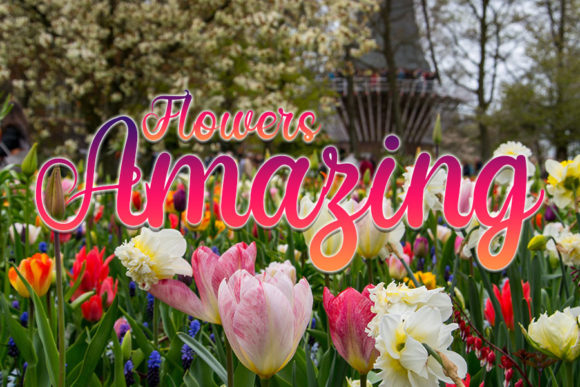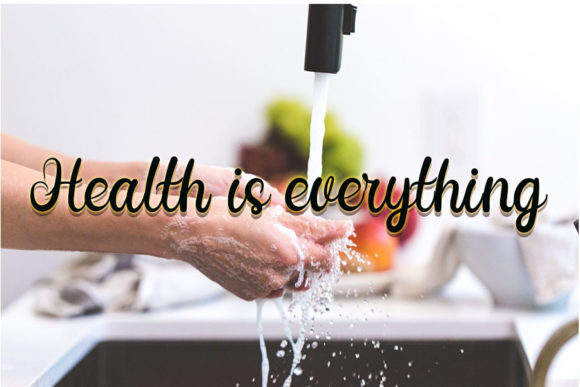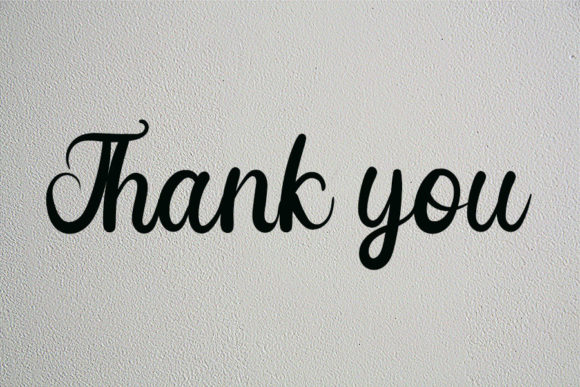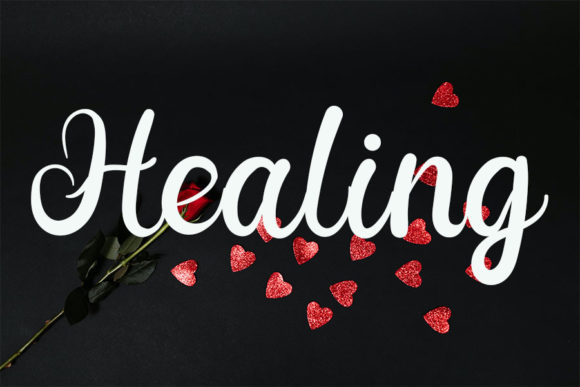
Kingdom Font
About Kingdom Font
Kingdom is a trendy and chic lettered script font. Whether you’re using it for crafting, digital designing, presentations or greeting cards making, it’s perfect!